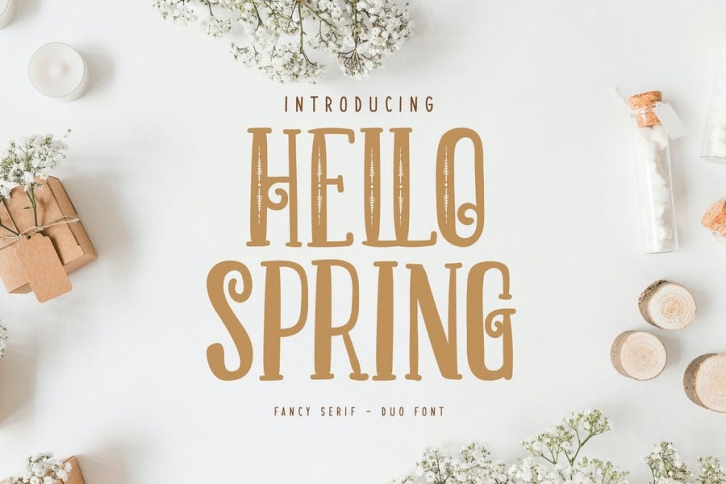
Hello Spring | Fancy Serif Duo Font Download
Hello Spring | Fancy Serif Duo Font a font that is very fresh and unique style handmade with 2 different style, So beautiful on invitation like greeting cards, branding materials, business cards, quotes, posters, and more!
• Tons of glyphs
• Alternates and Ligatures
• Punctional
• Fonts include Multilingual Support